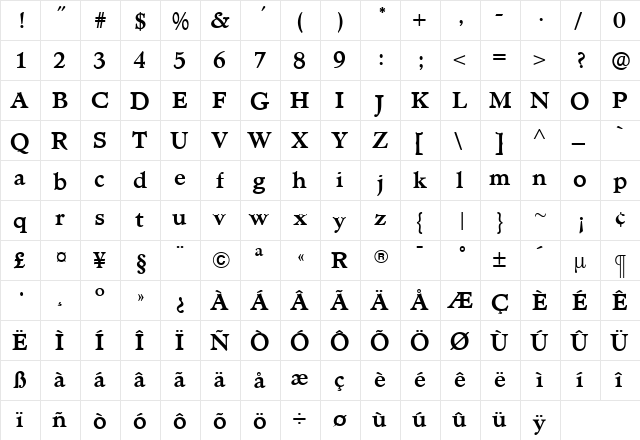
TCAdministerBold Roman
Design Context for TCAdministerBold Typeface
TCAdministerBold offers clean, dependable letterforms without strong stylistic allegiance, making it a practical choice for designers who need flexibility. Its bold stroke weight gives it real presence on the page.